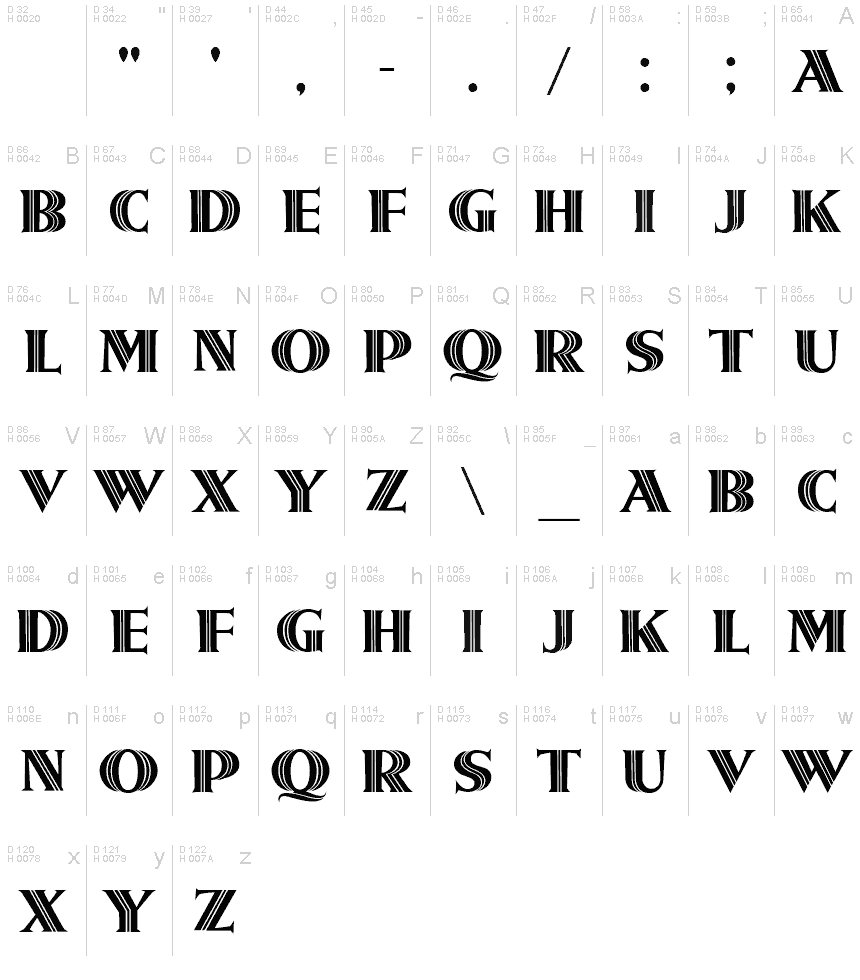
Metroliner Regular
Metroliner is a bold, retro-inspired display font designed by J. Macagba. Its striking letterforms evoke a vintage, industrial aesthetic, with thick strokes and sharp, geometric edges that convey a sense of power and confidence. The font's robust construction lends itself well to headlines, titling, and branding applications, where it can lend a touch of vintage-inspired flair to modern designs.
Metroliner's distinct personality makes it a versatile choice for a range of creative projects, from editorial layouts to packaging design, effectively capturing a nostalgic yet forward-thinking aesthetic.